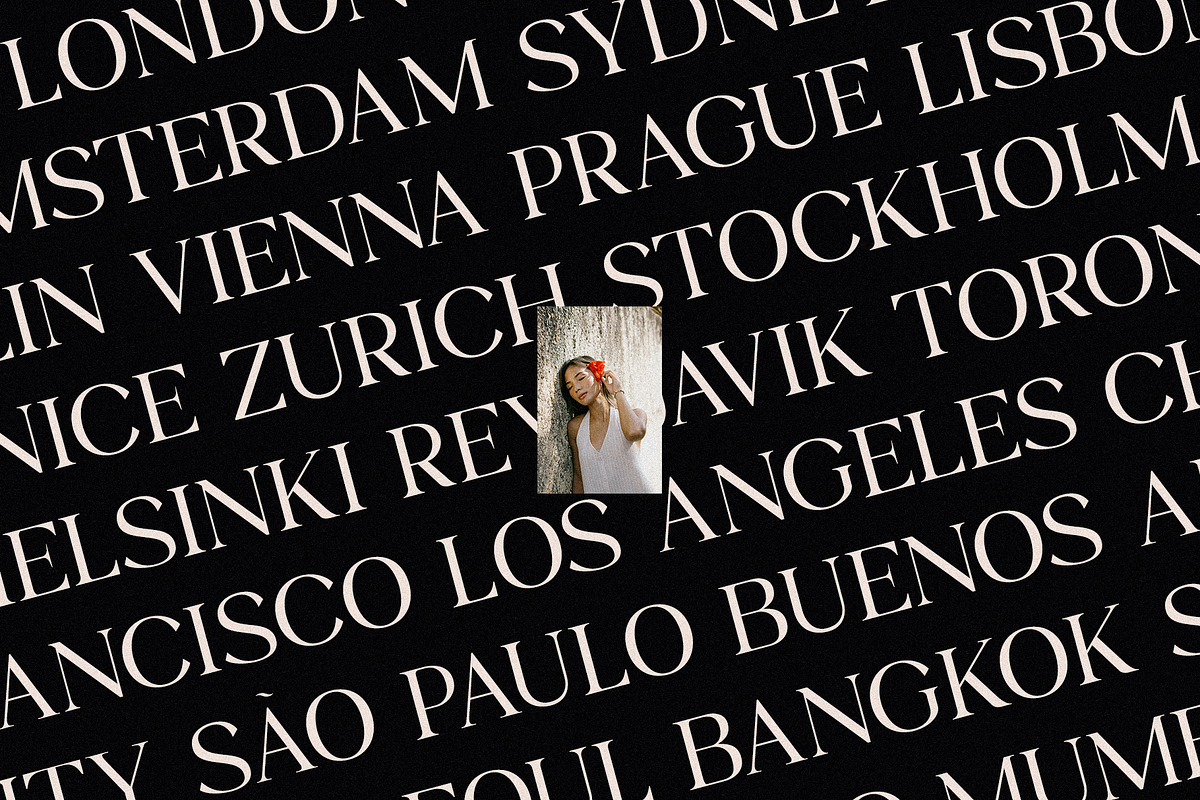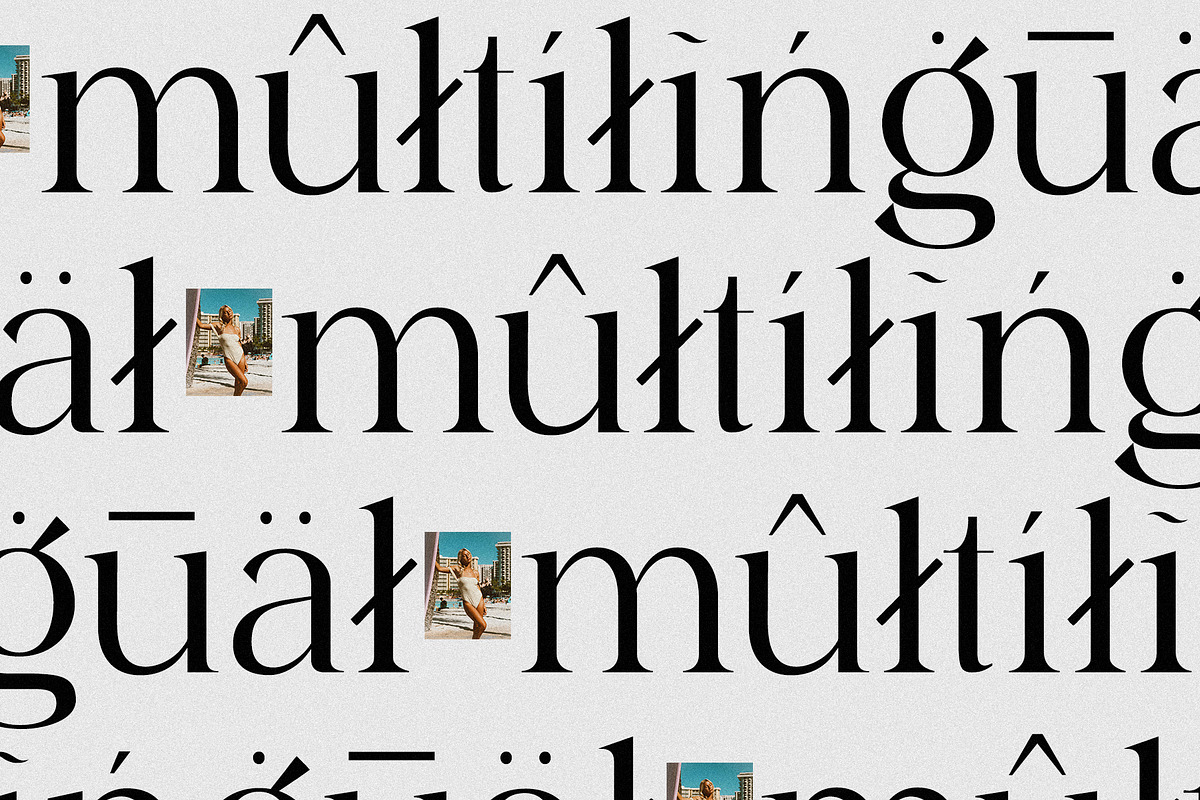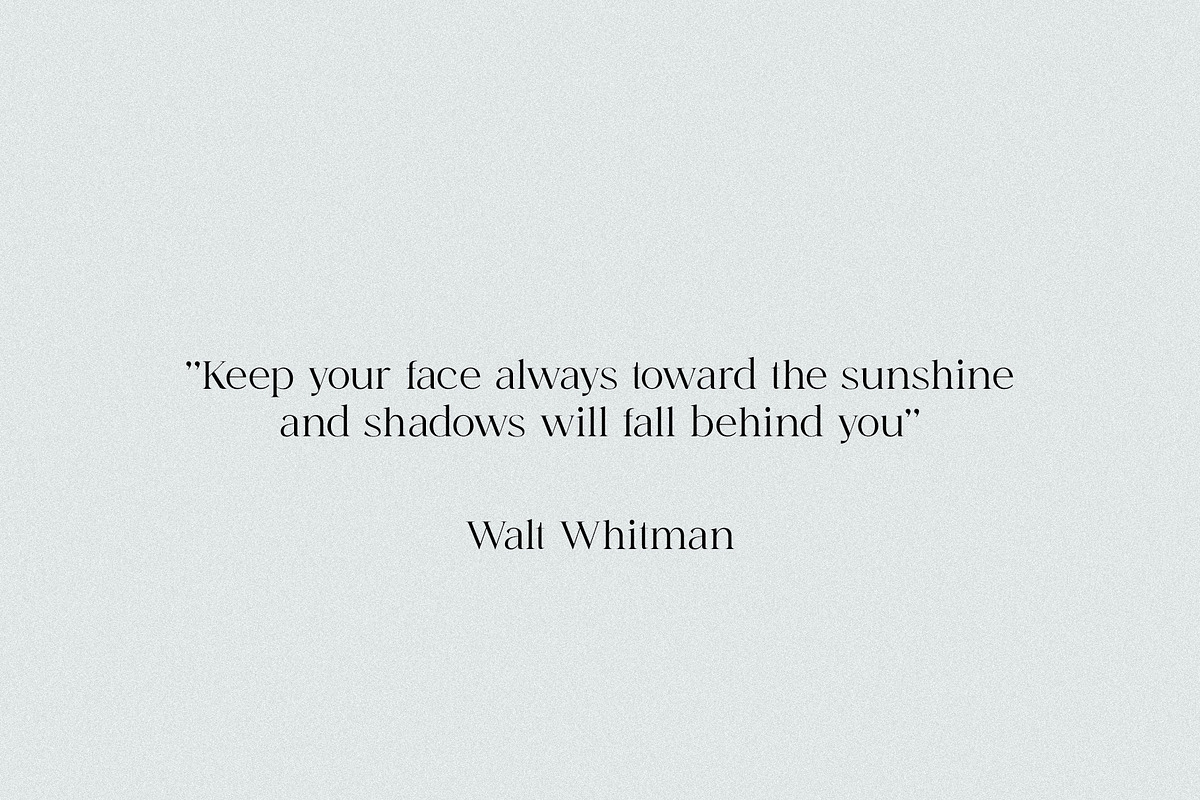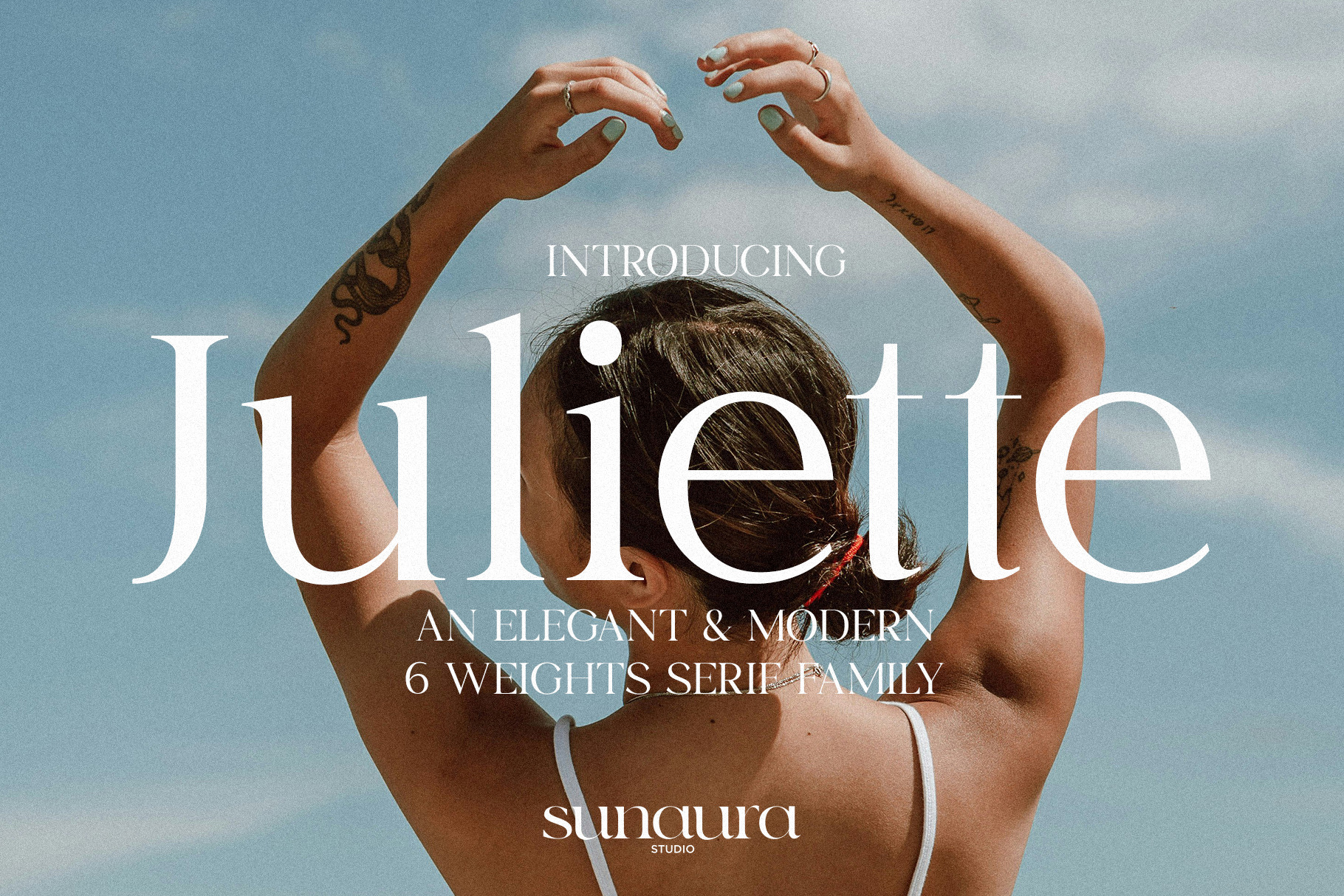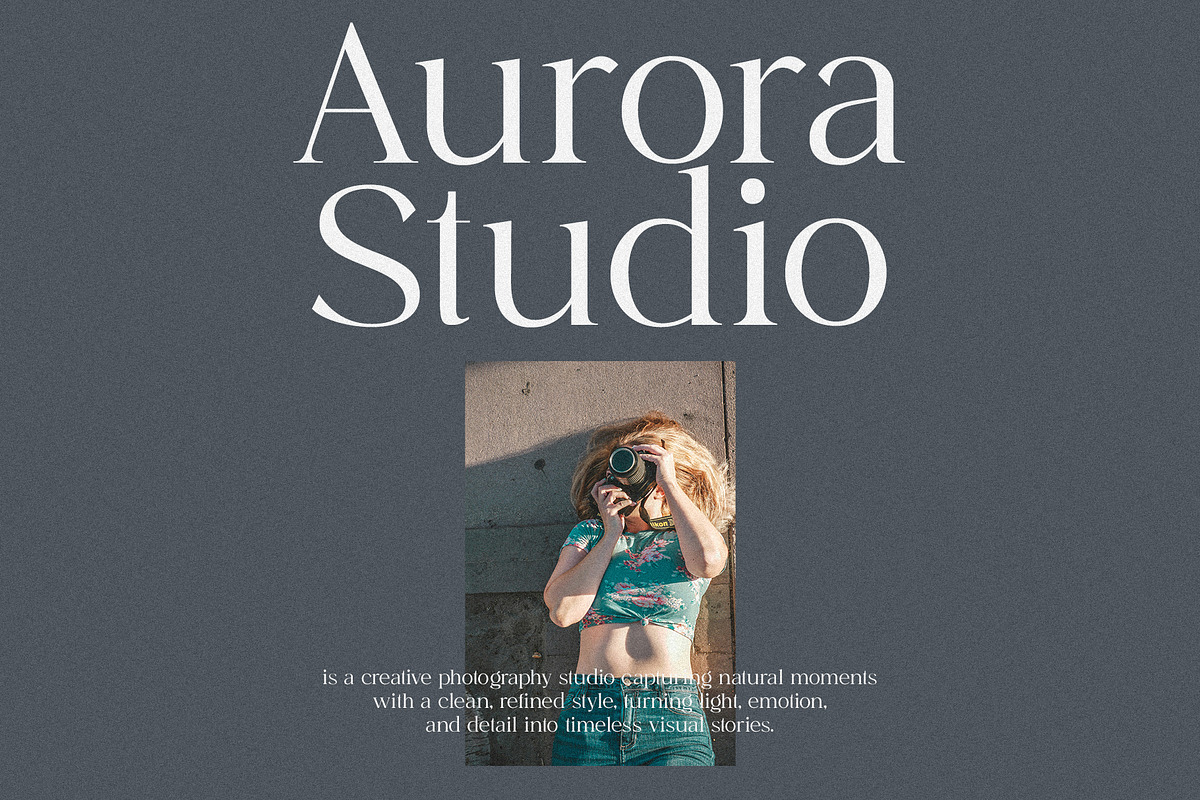
Juliette Family Serif (12 Fonts)
Juliette Family Serif is a refined and versatile serif typeface family designed to balance elegance with contemporary clarity. Consisting of 12 carefully crafted fonts, the family offers a wide range of weights and styles, making it suitable for both expressive headlines and sophisticated body text.
Inspired by classic serif traditions yet shaped with modern proportions, Juliette Family Serif features graceful curves, confident strokes, and excellent readability across print and digital media. Its subtle contrast and well-defined letterforms give it a timeless character while remaining fresh and adaptable.
Perfect for editorial design, branding, magazines, luxury packaging, and high-end web projects, Juliette Family Serif delivers a sense of warmth, credibility, and style. Whether used for bold statements or delicate typography, this family provides designers with flexibility, consistency, and a distinctive voice.